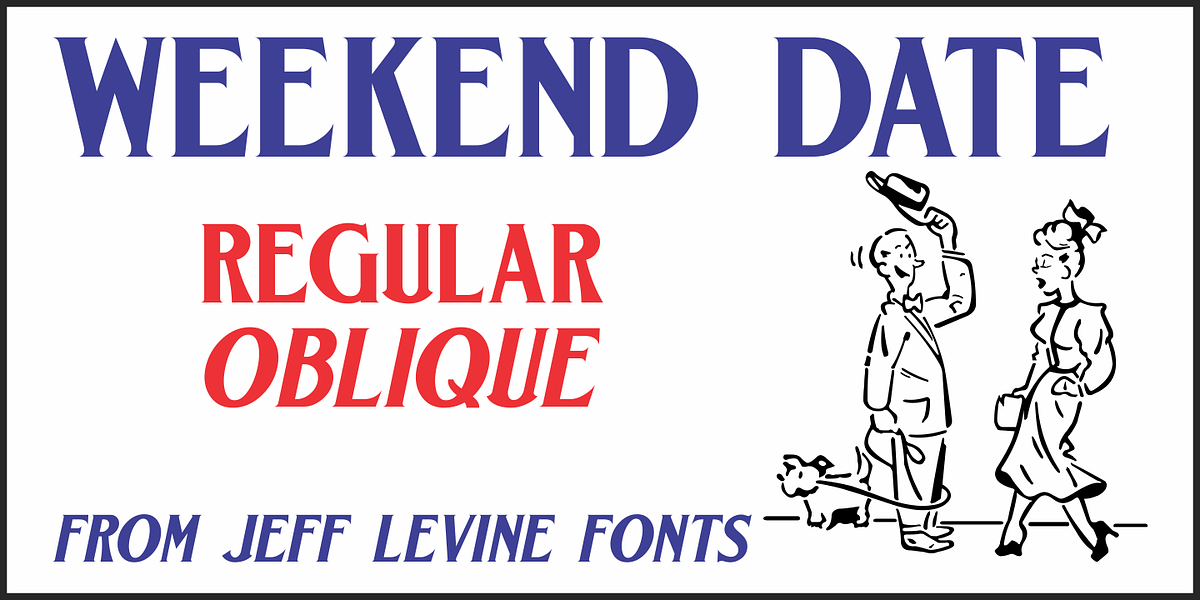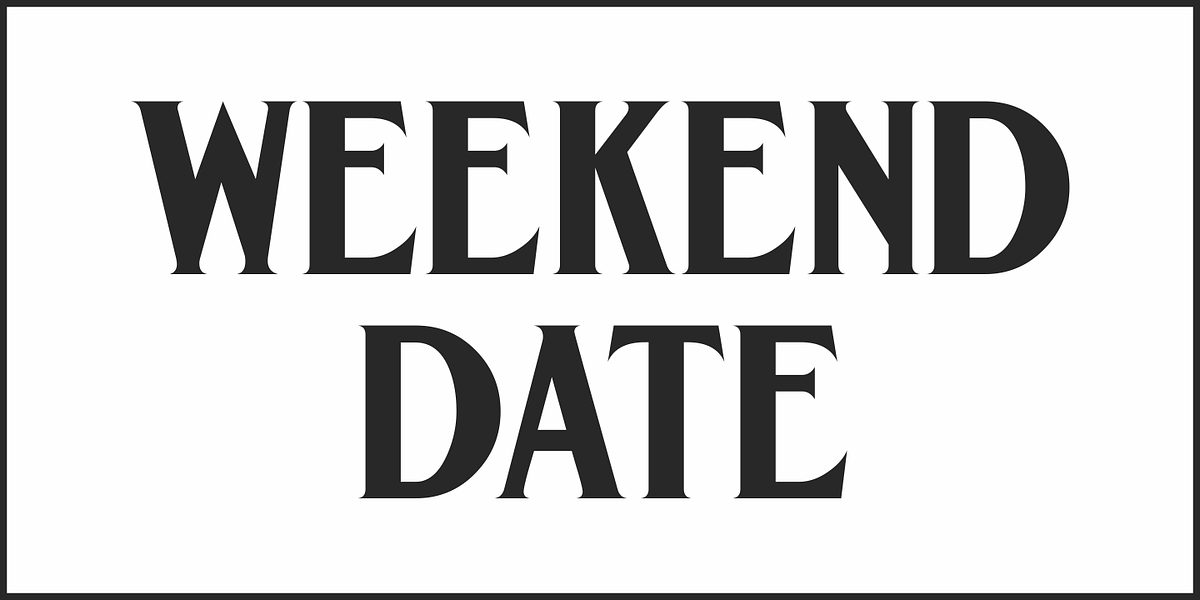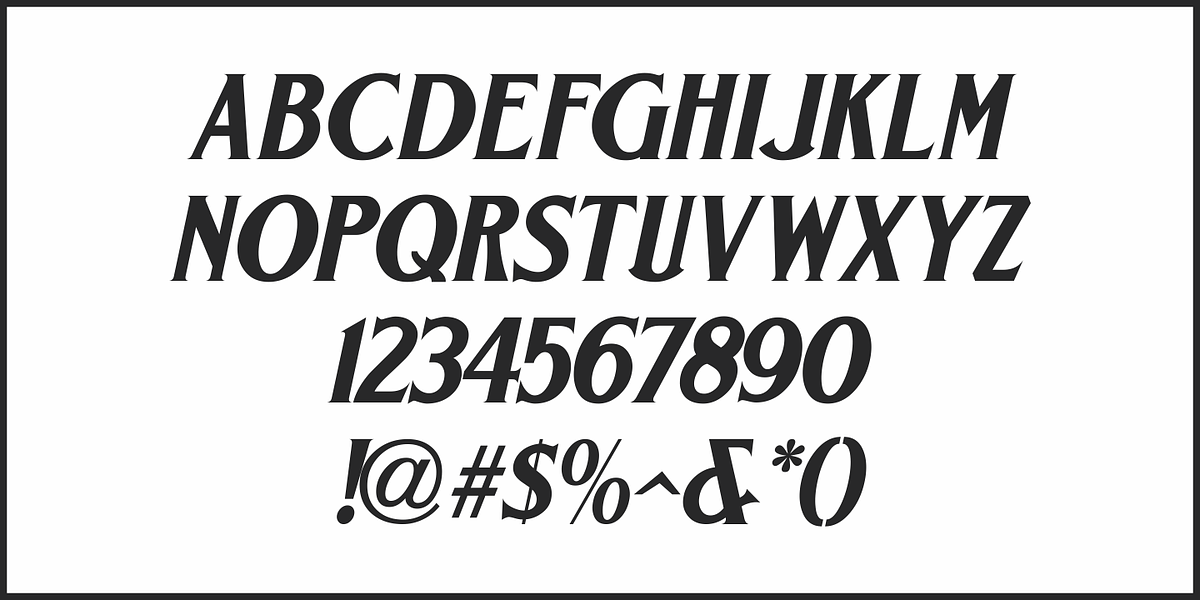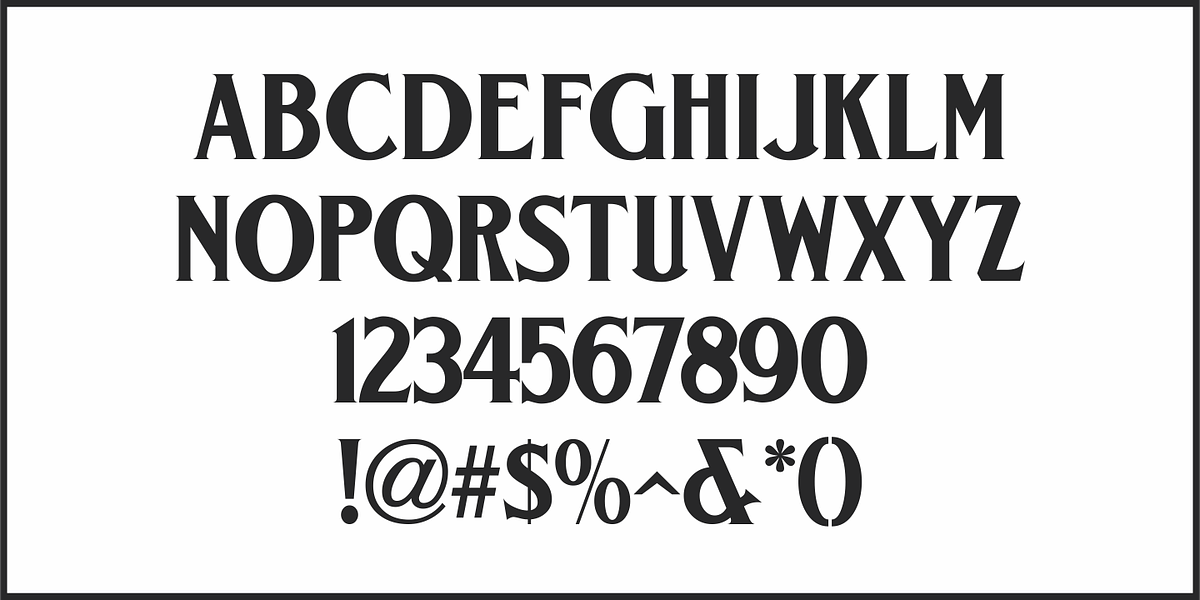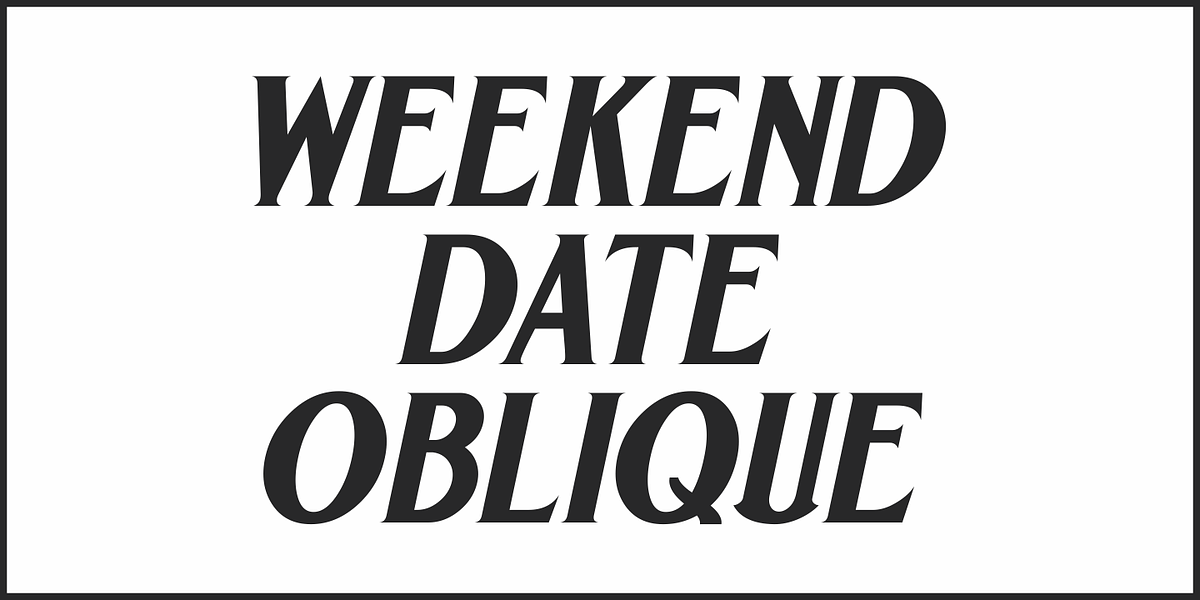
Weekend Date JNL
Sheet music from 1910 with another one of those ridiculous thirteen word titles (“I Love My Steady but I’m Crazy for My “Once-in-a-While’”) had the lengthy verbiage hand lettered in a bold serif typeface with slightly spurred serifs.
This has been recreated in a digital typeface with a much shorter name: Weekend Date JNL, which is available in both regular and oblique versions.